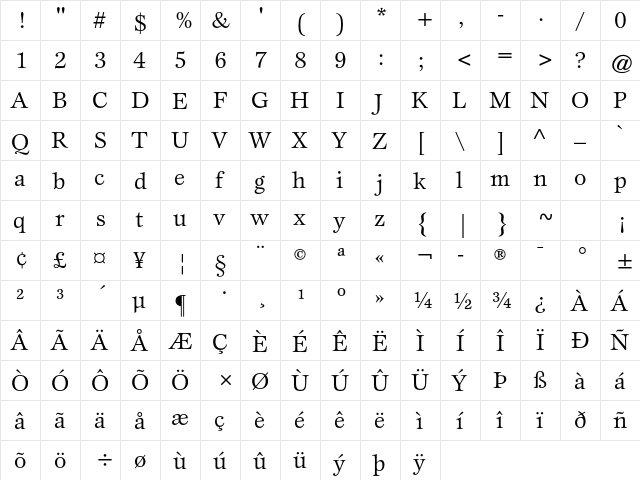
ITC Esprit Std Book Font Preview
ITC Esprit Std Book
ITC Esprit Std Book Font Details
| Style | Book |
| Designer | Jovica Veljovic |
Design Context for ITC Esprit Std Typeface
ITC Esprit Std takes a measured approach to typography — its balanced proportions and neutral character make it a reliable workhorse for both digital and print work.